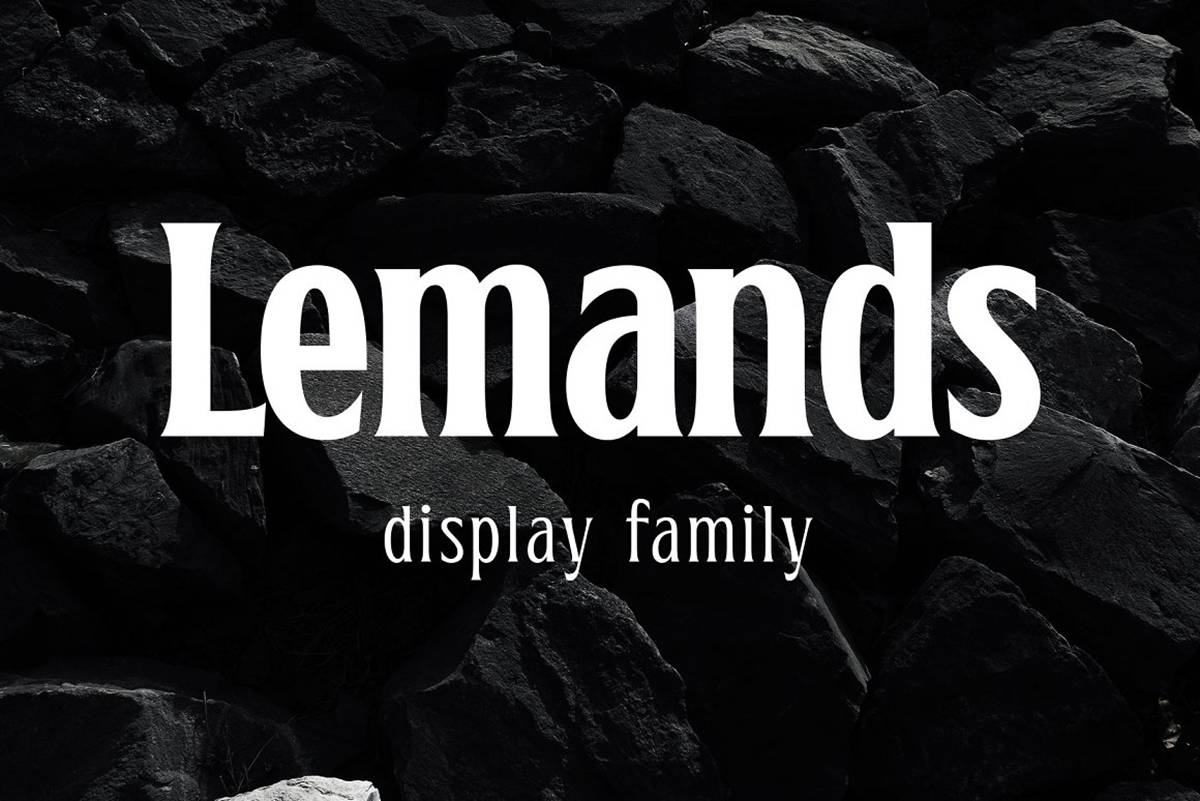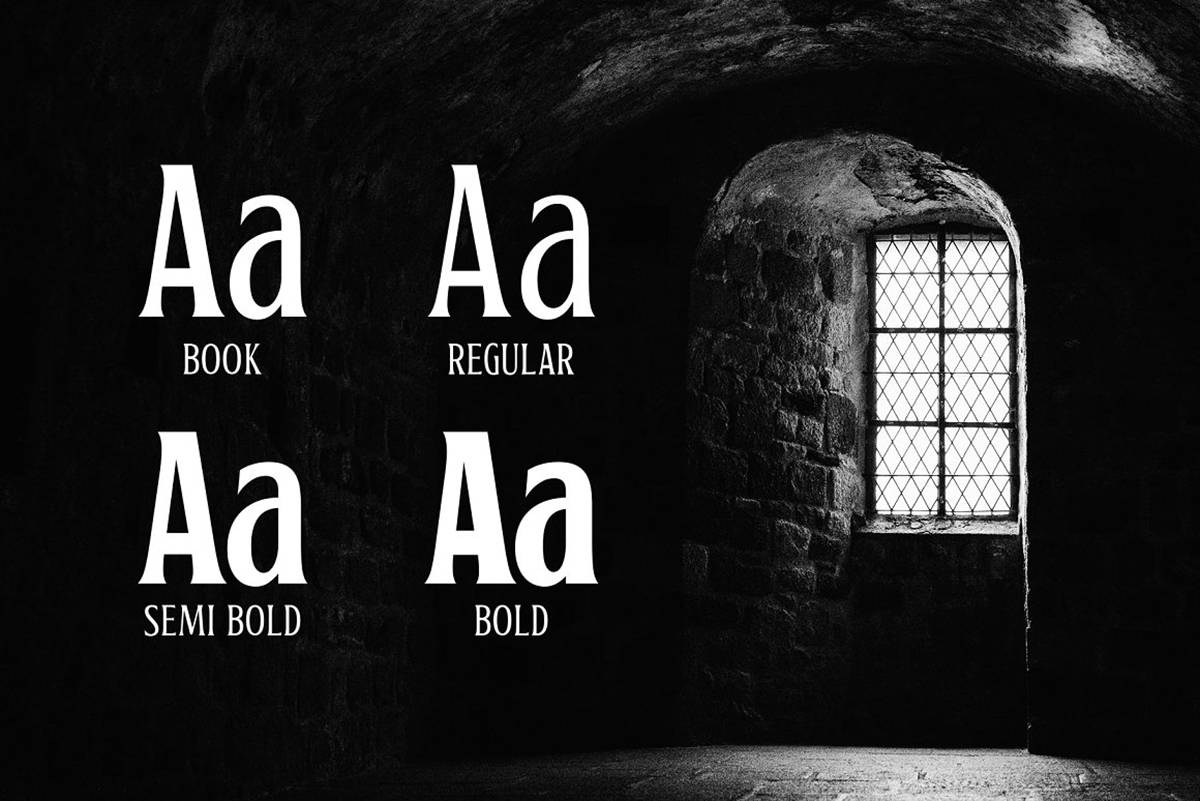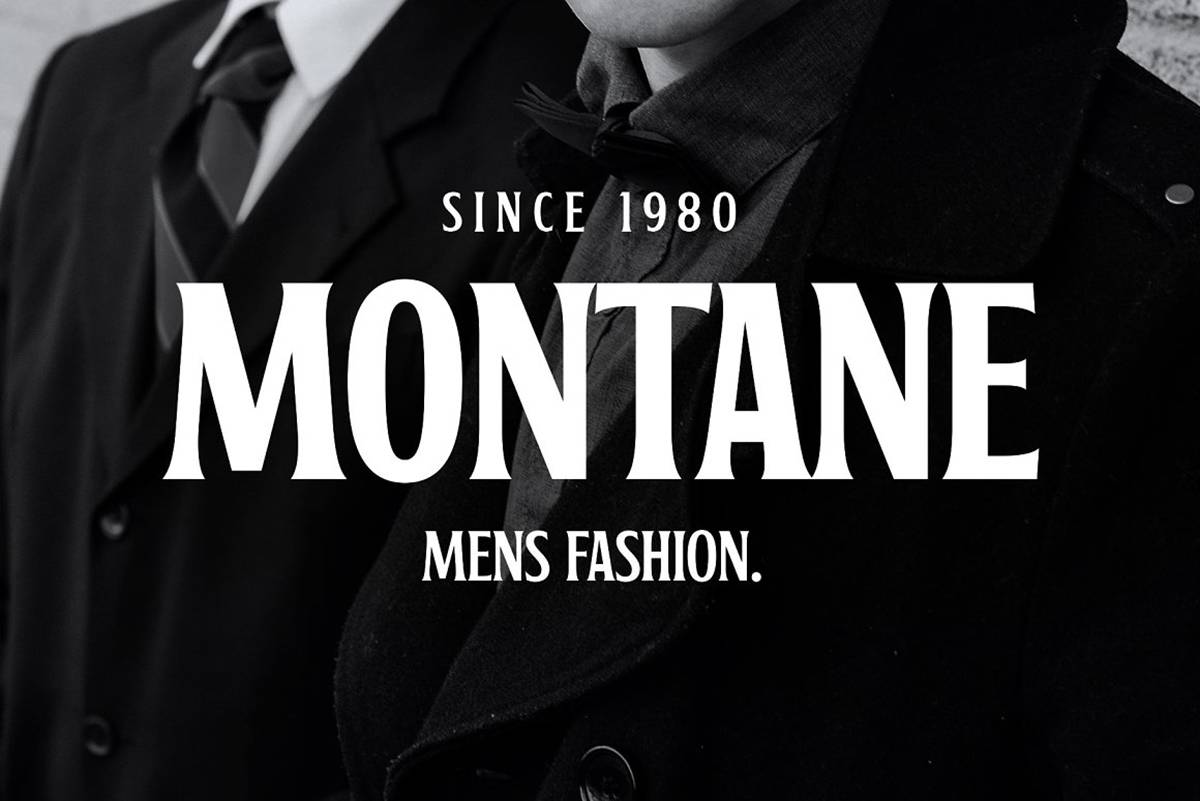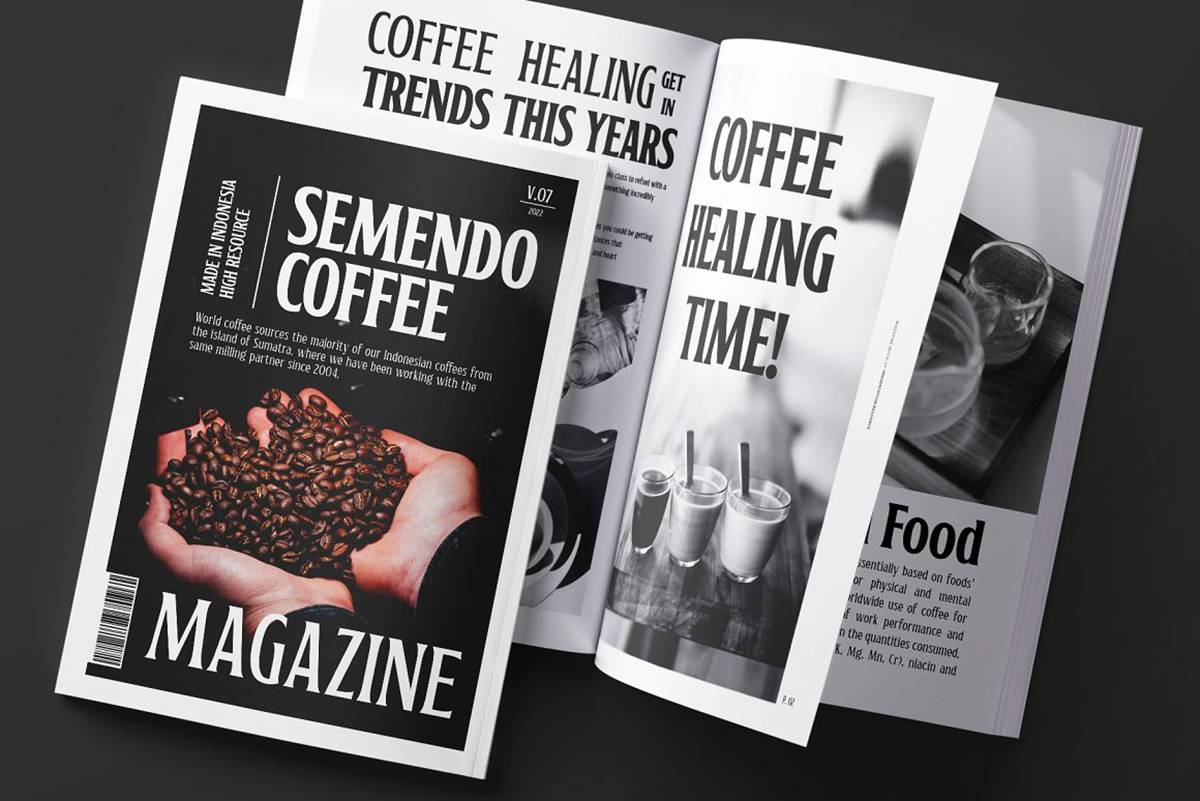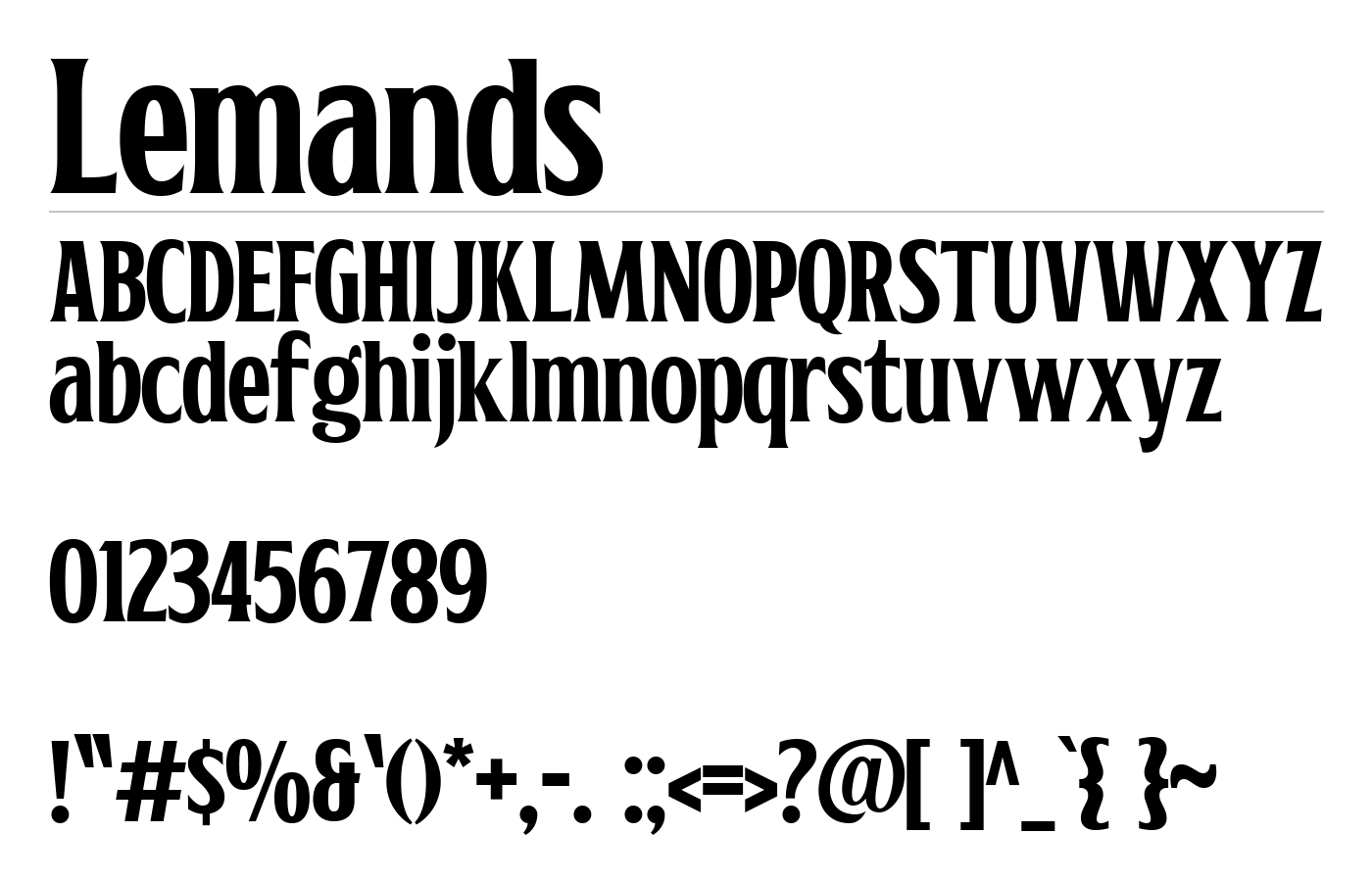
Lemands is a bold, condensed serif font with a strong presence and high contrast between thick and thin strokes that give it a refined yet commanding look. Its sharp, bracketed serifs and distinct letterforms create a vintage-modern blend, making it ideal for attention-grabbing headlines, logos, and editorial designs that seek to convey elegance and confidence. This font works particularly well in fashion and luxury branding, where its dramatic style enhances a sophisticated and stylish mood.
Lemands Font
About Lemands Font